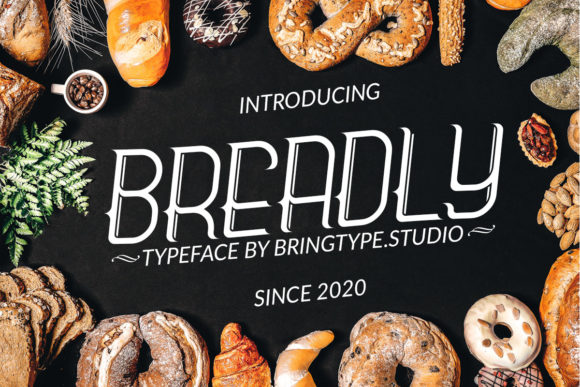
Indulge in the captivating world of typography with Breadly Font, a display font that transcends the ordinary. Its meticulously crafted curves and playful charm will ignite your creativity and leave an unforgettable impression on your designs.
Breadly Font is a symphony of style, effortlessly blending the allure of handwritten aesthetics with the precision of digital artistry. Each stroke carries a touch of elegance, ensuring that your words dance off the page with grace and sophistication.
This extraordinary font is not merely a collection of letters; it's an invitation to express your individuality and make a statement. Whether you're crafting enchanting invitations, alluring social media graphics, or eye-catching website headlines, Breadly Font will elevate your creations to new heights.
Immerse yourself in the world of Breadly Font, where every letter tells a story and every combination sparks a new wave of inspiration. Let your imagination soar as you discover the endless possibilities that await you with this remarkable display font.
With Breadly Font at your fingertips, you'll unlock a treasure trove of creative potential. Its versatility knows no bounds, effortlessly adapting to a myriad of design styles and projects. From whimsical invitations to sophisticated branding materials, Breadly Font will seamlessly complement your vision.
Don't let your designs settle for the mundane. Embrace the extraordinary with Breadly Font, the display font that will captivate your audience and leave a lasting impression. Immerse yourself in a world of typographic delight and let your creativity flourish like never before.